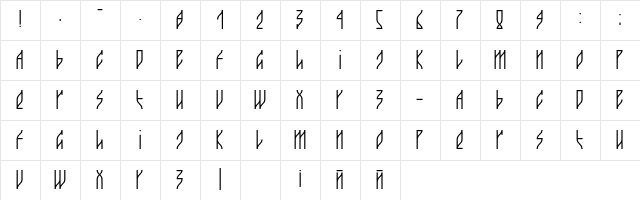
Complete guacamayo Regular glyph index. Displaying only characters natively supported by guacamayo Regular font.
guacamayo is a composed and adaptable typeface that performs quietly and consistently across a wide range of design contexts.